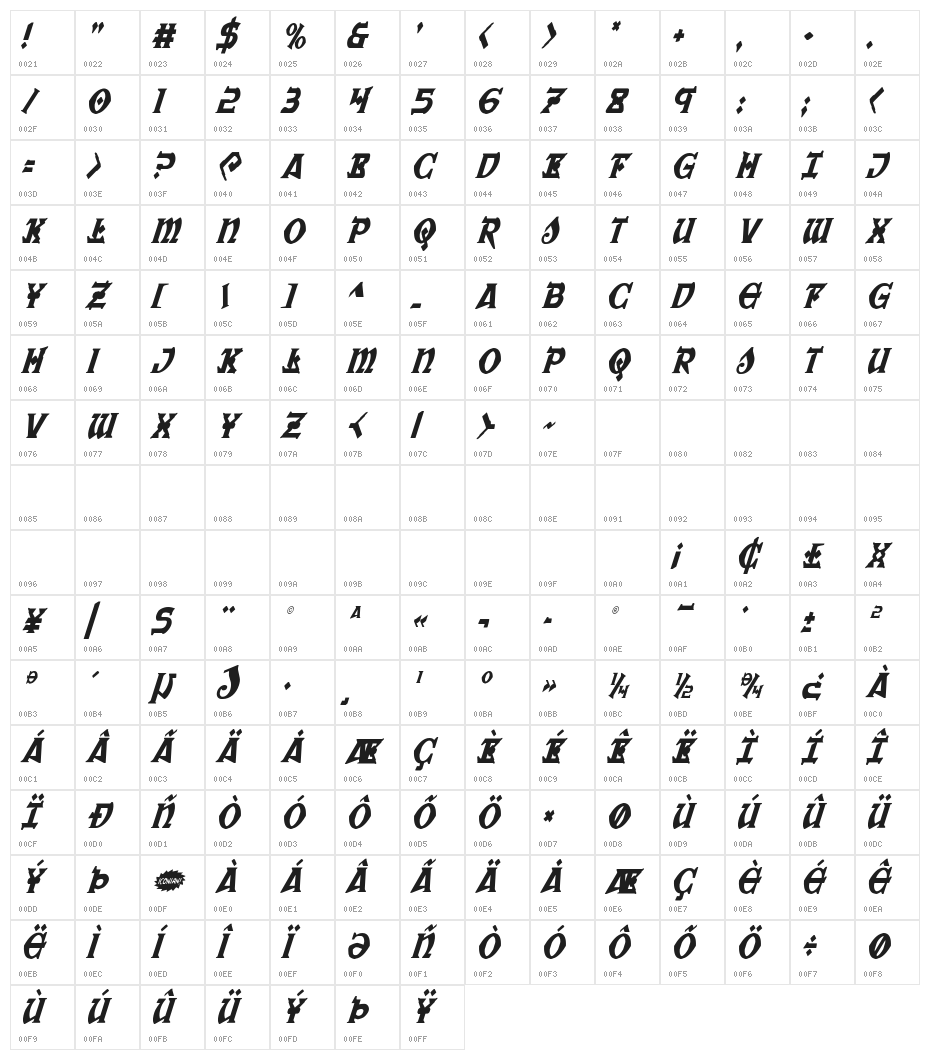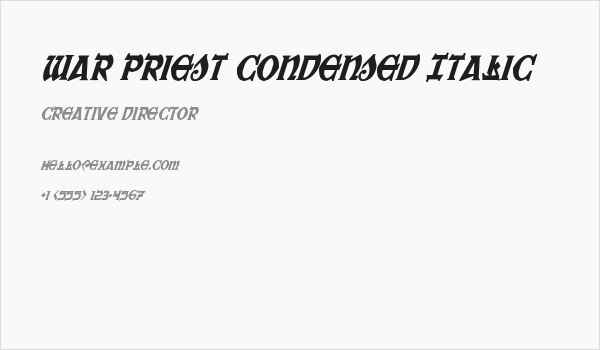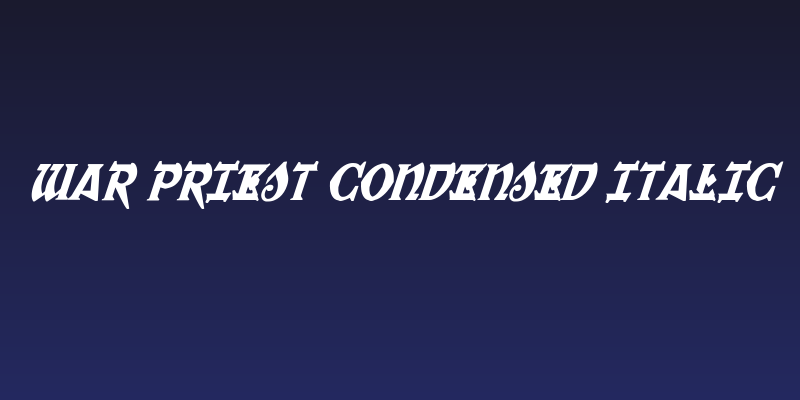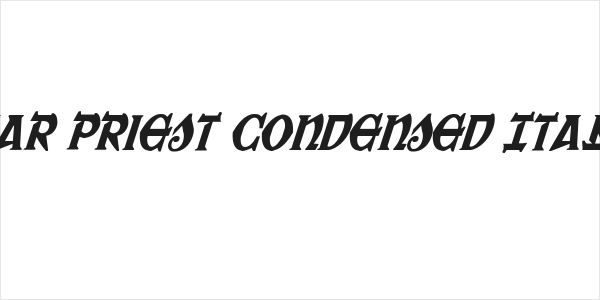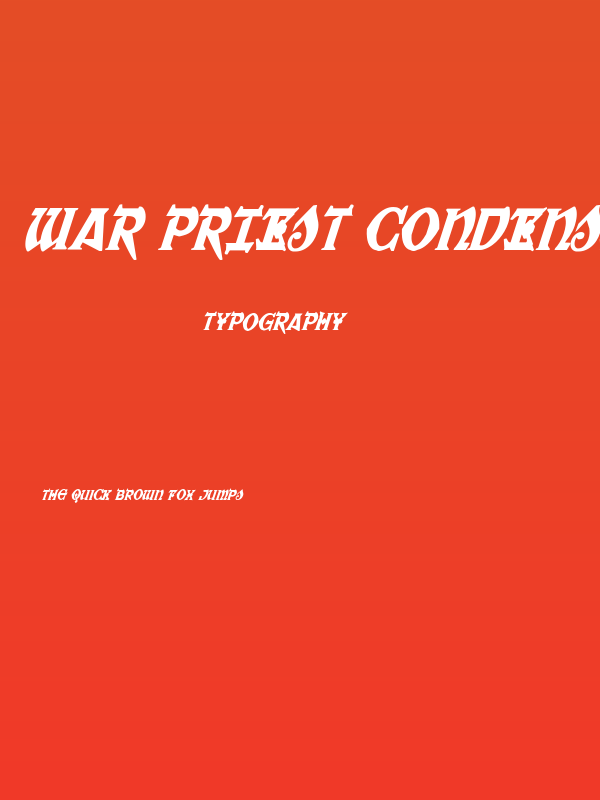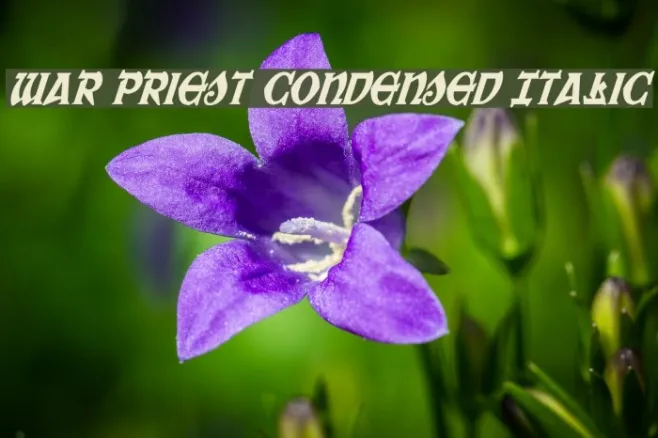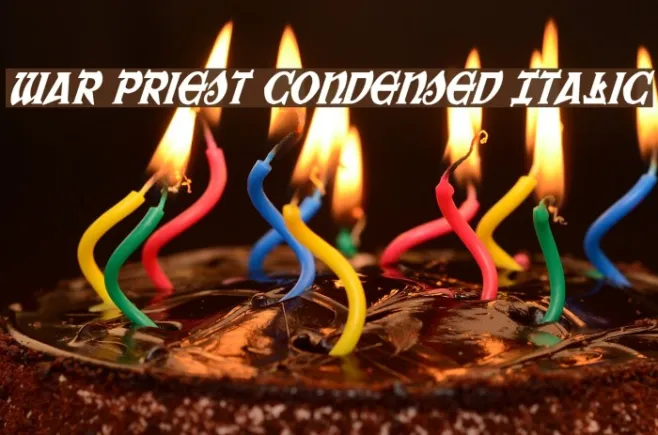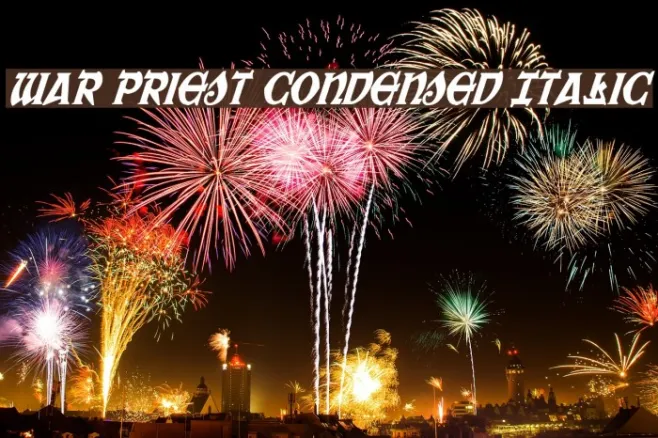
War Priest Condensed Italic Font
War Priest Condensed Italic Description
This font features a bold and dynamic style with a strong presence. The characters are sharply angled and condensed, giving them a compact and powerful look. The italic slant adds a sense of motion and urgency, making it ideal for impactful designs. The strokes are thick and consistent, providing a high contrast that enhances readability while maintaining a decorative flair. The unique design elements in certain characters, such as the distinctive curves and sharp edges, contribute to its aggressive and commanding appearance.
| Proposed Projects | Ideal for use in posters, video game titles, sports branding, and any project requiring a strong, impactful typeface. |